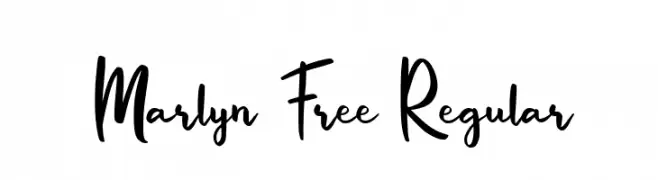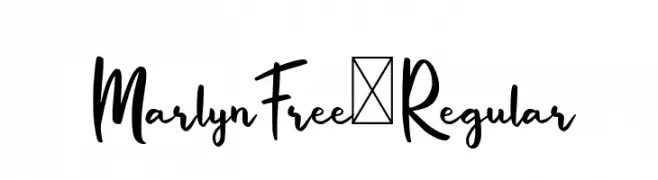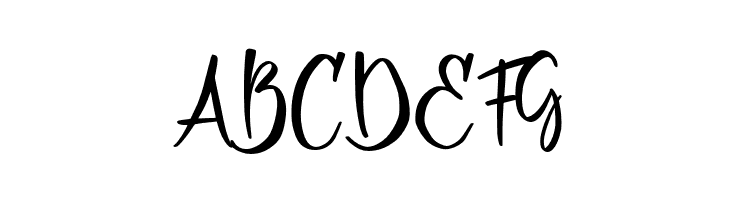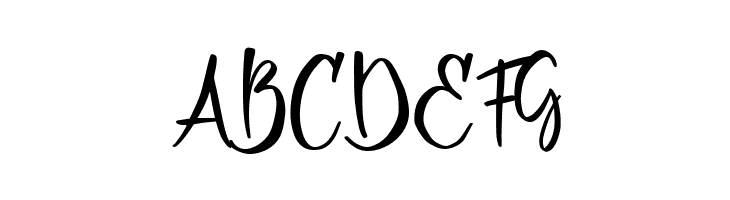
A dynamic, cursive font with fluid, interconnected strokes and a personal touch.
A modern, elegant script font with flowing, cursive letters and artistic flourishes.
A charming and elegant handwritten cursive font with fluid letterforms.